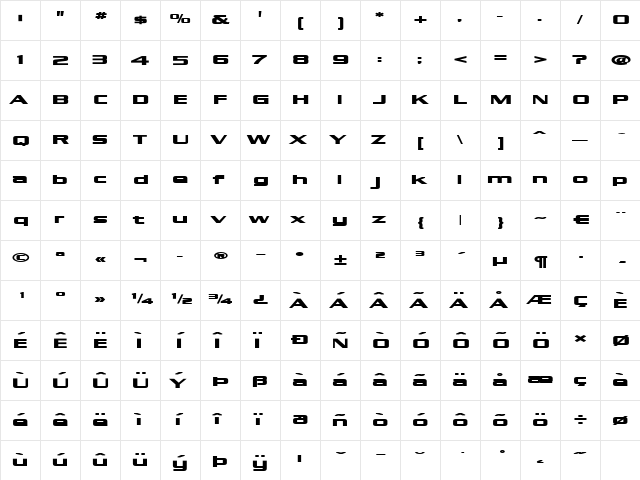
Kubra_Bold Kubra_Bold
| Designer | Ersenak Xtreme |
Design Context for Kubra_Bold Typeface
Kubra_Bold takes a measured approach to typography — its balanced proportions and neutral character make it a reliable workhorse for both digital and print work. Its bold stroke weight gives it real presence on the page.